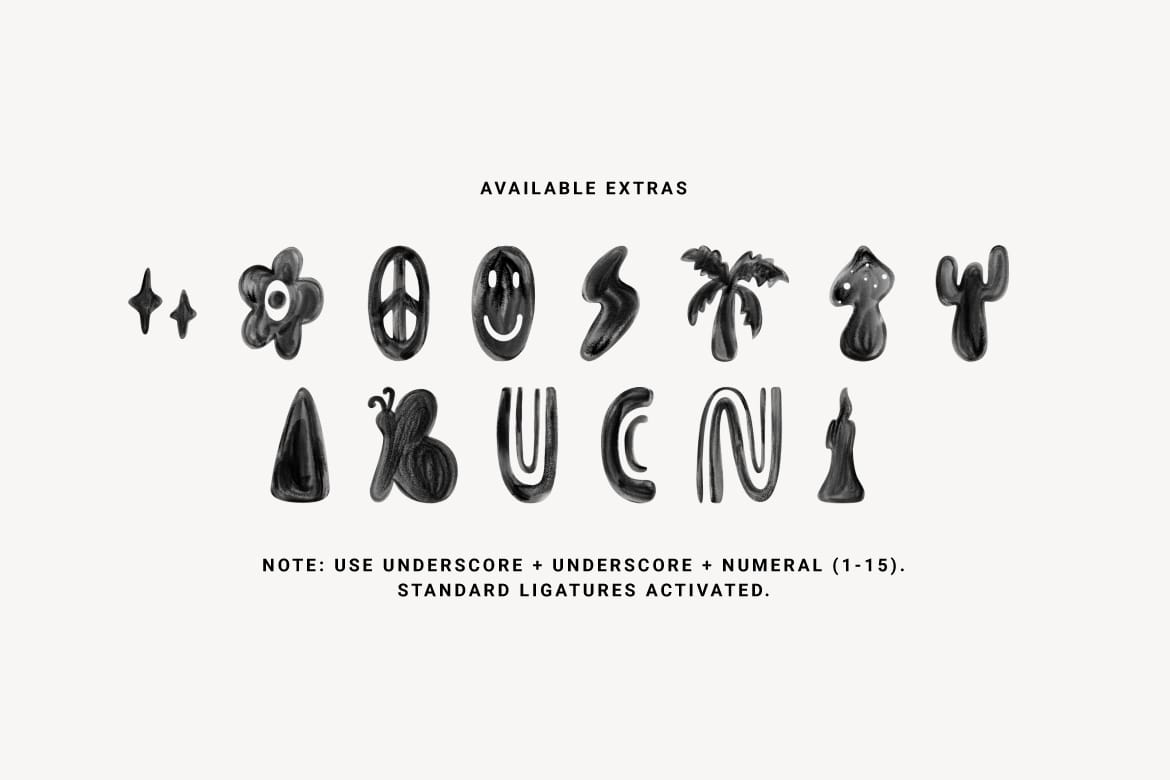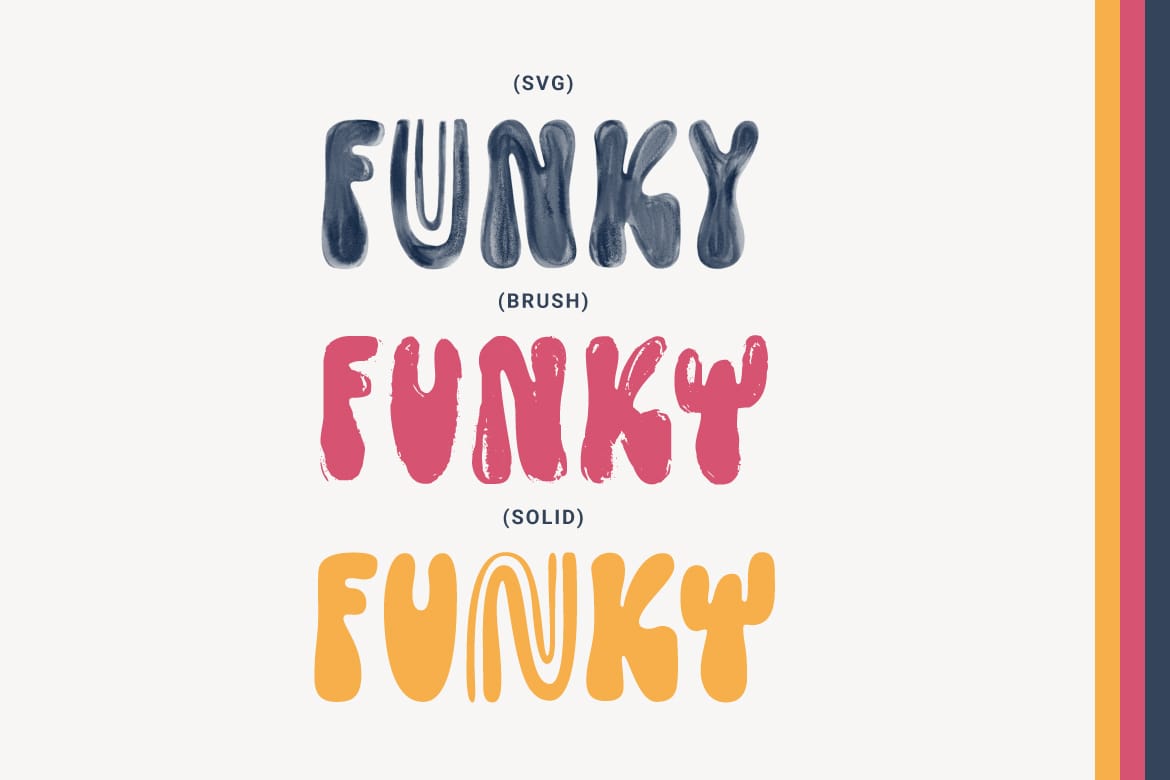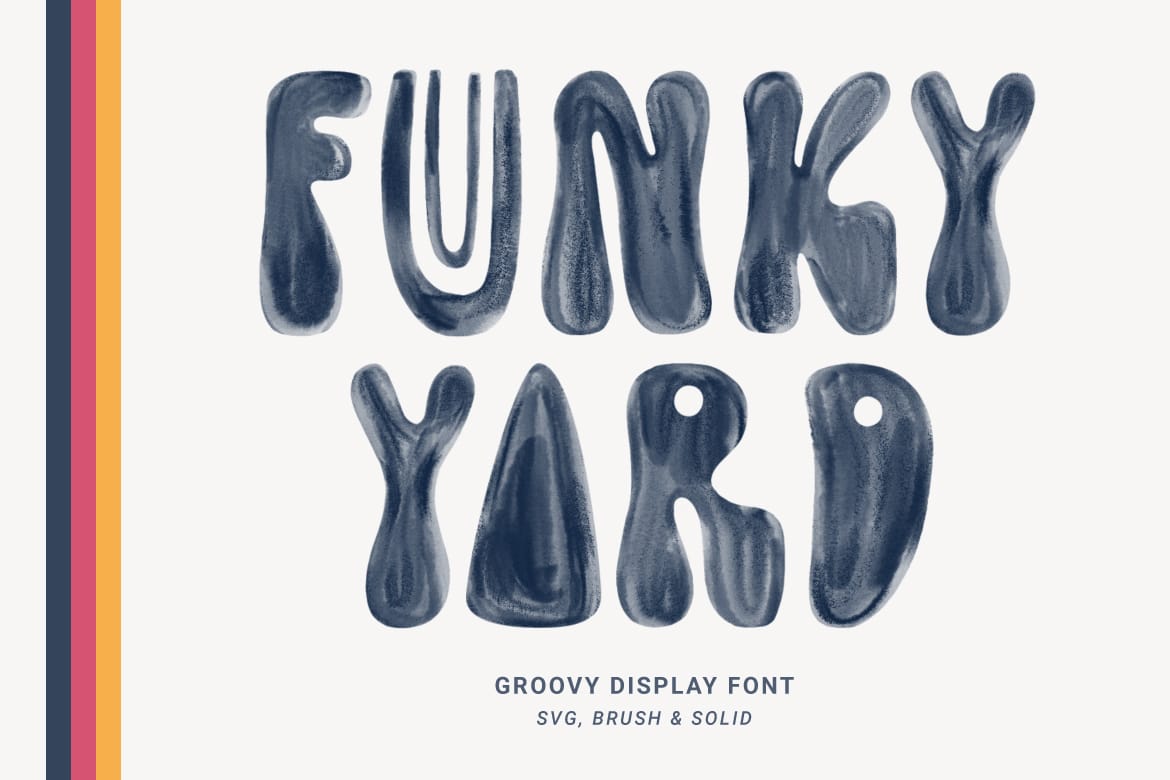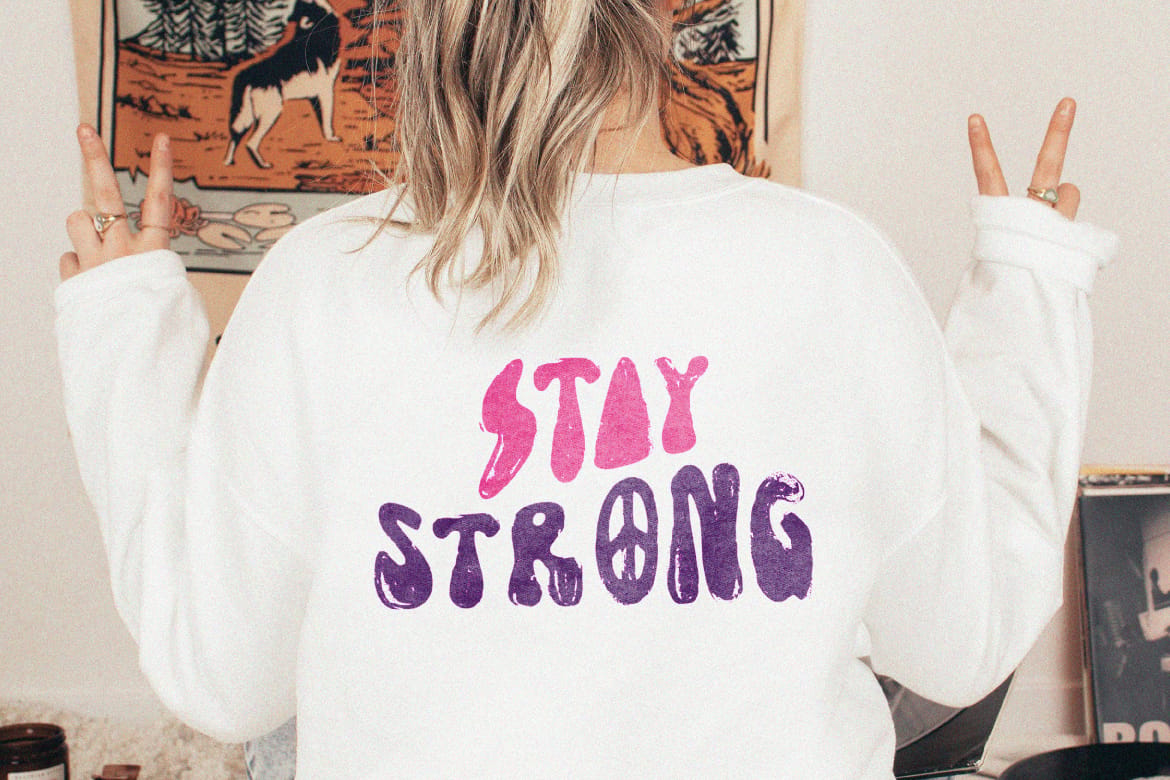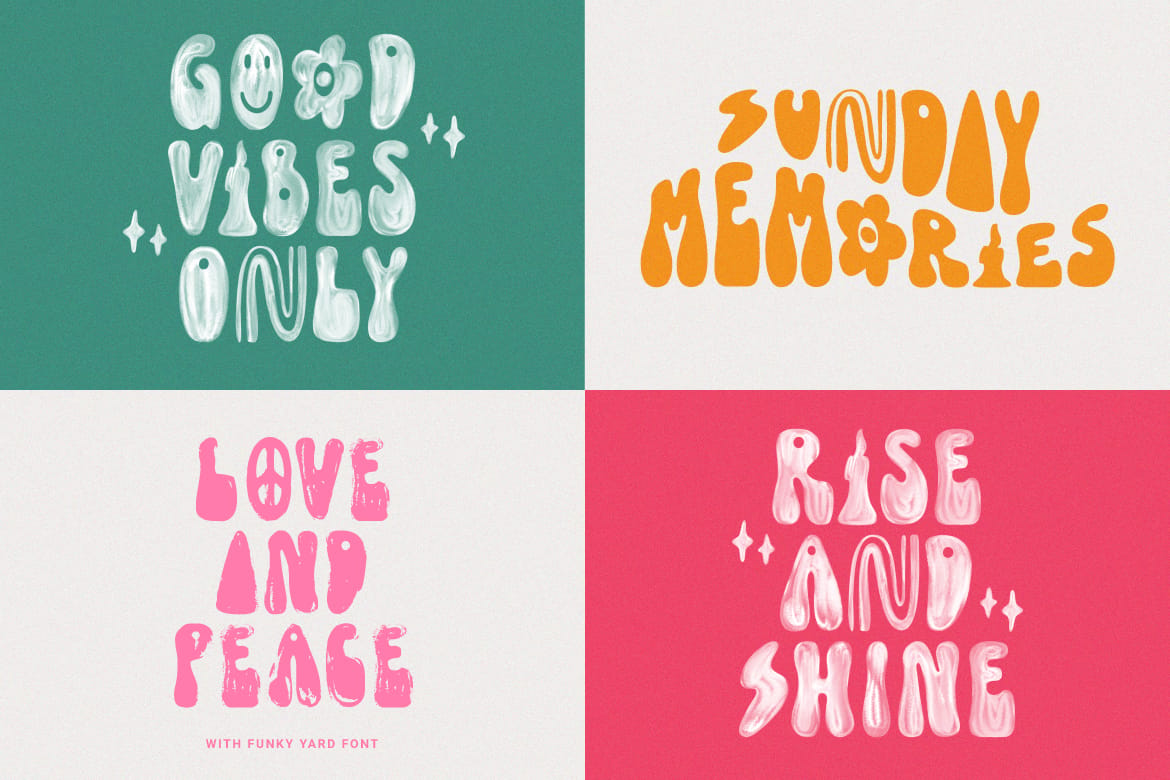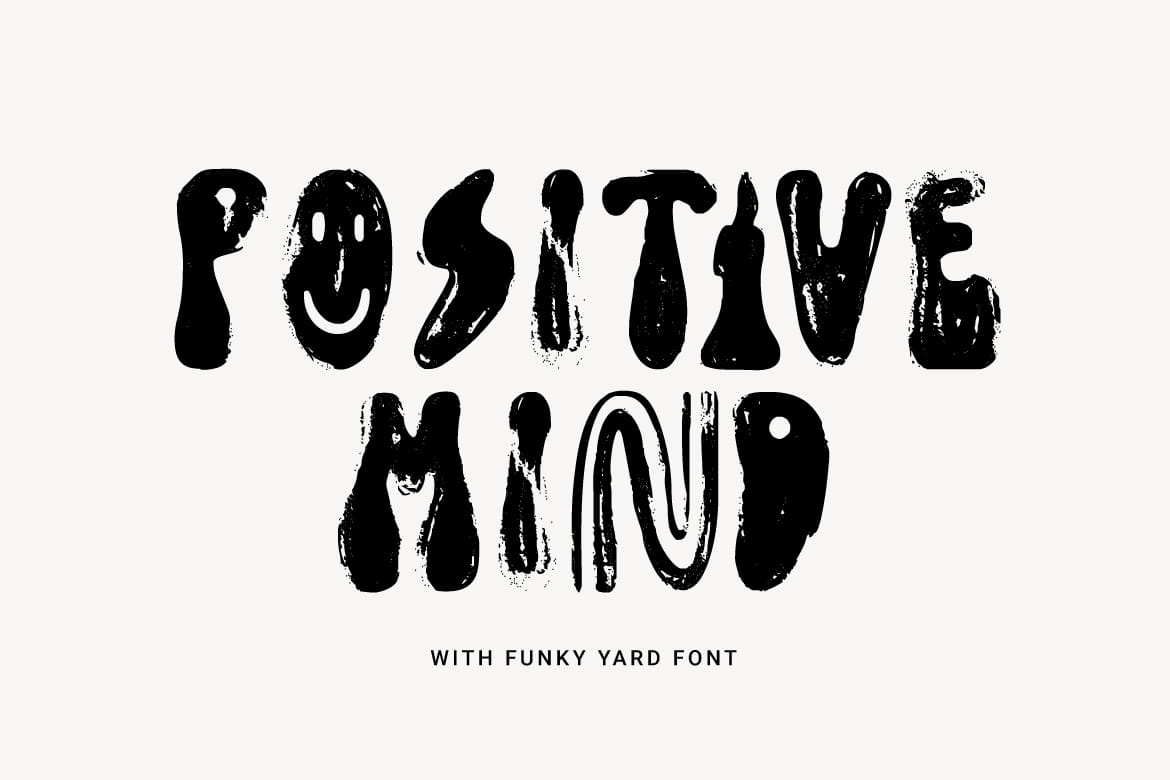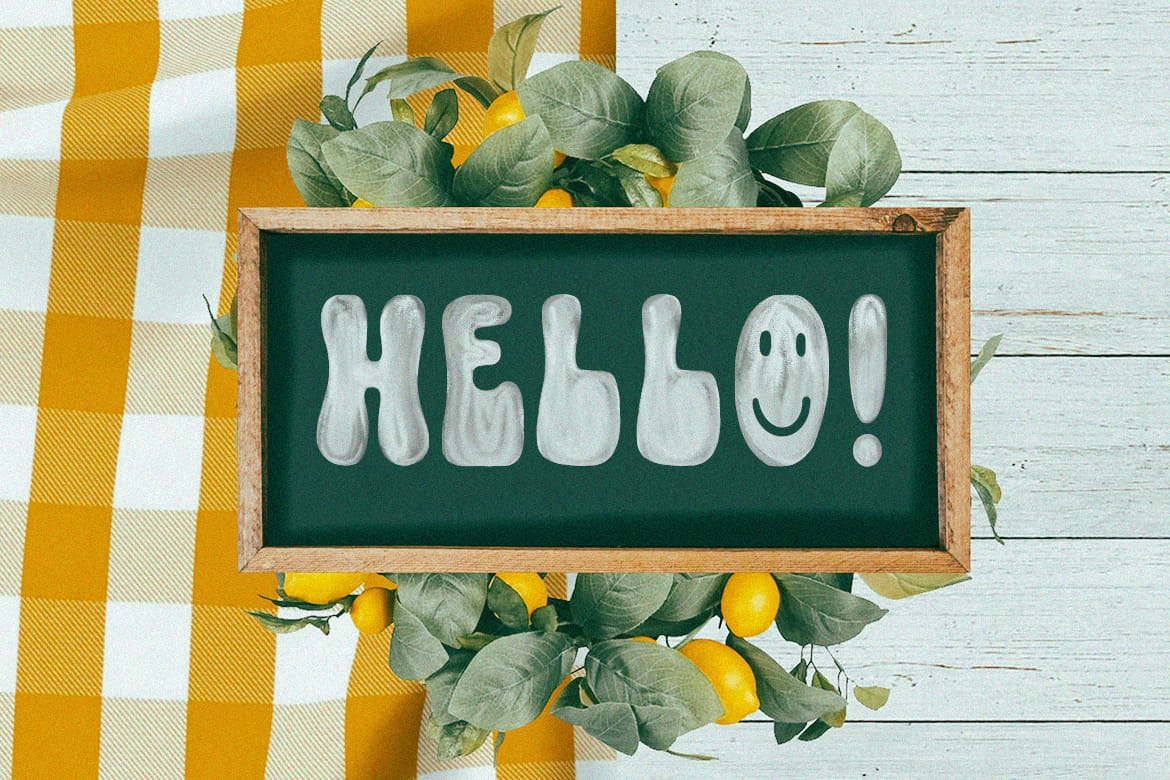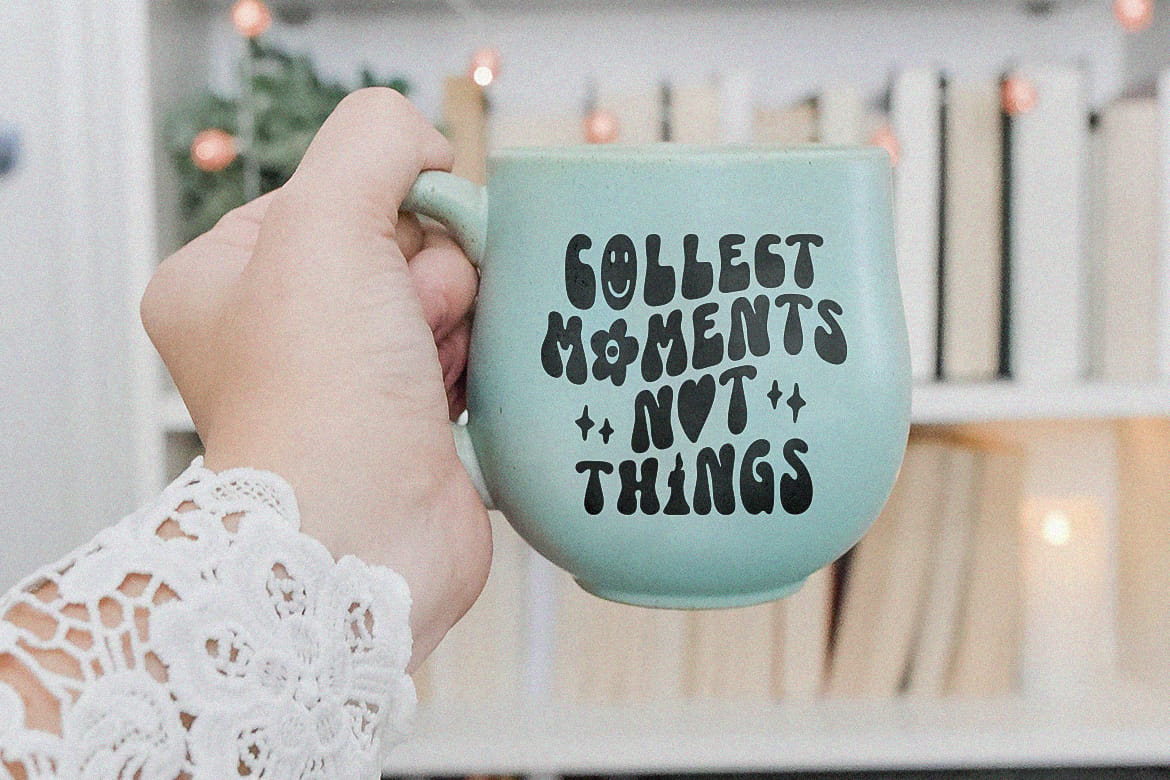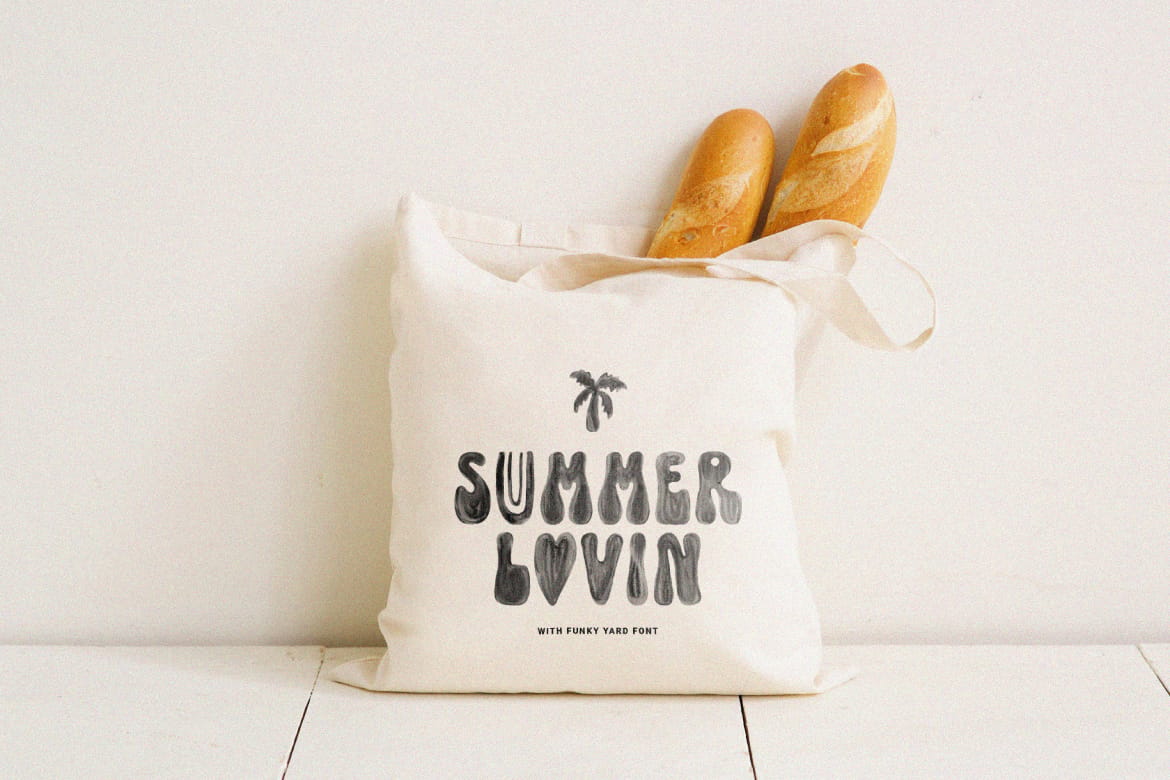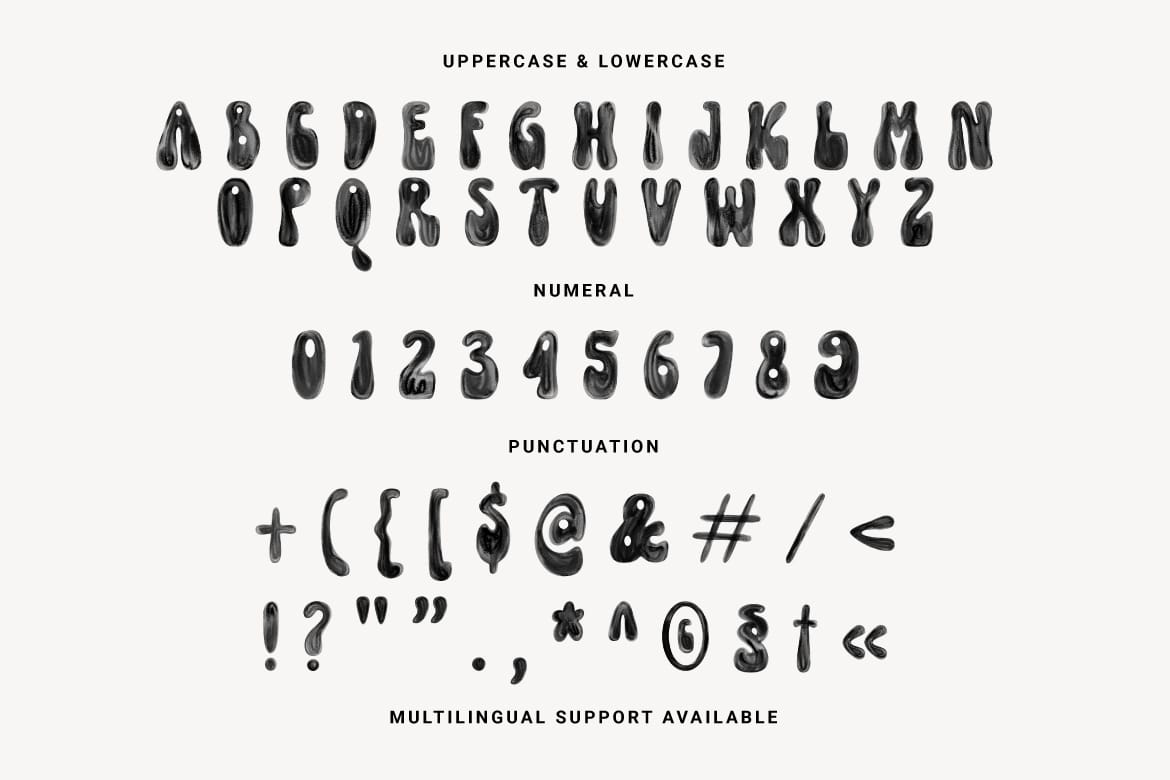
Funky Yard - SVG Groovy Font + Extras.
Presenting this new svg font. Funky Yard is a groovy display font with 3 styles, namely: Svg, Brush and Solid. There is an extra hand-drawn in the font file to further vary your design. Great for merchandise design, posters, branding, covers etc.
Note: To access extras, just type: underscore + numeral (1-15). Standard ligatures activated.
Features: Uppercase, Lowercase, Numeral, Punctuation, Multilingual & Ligatures.